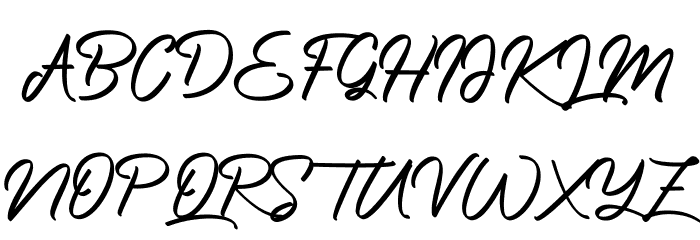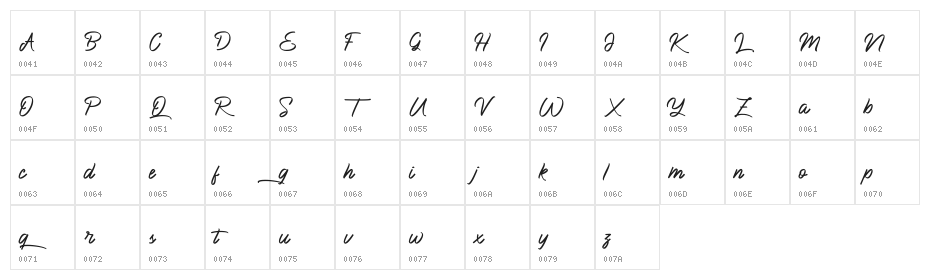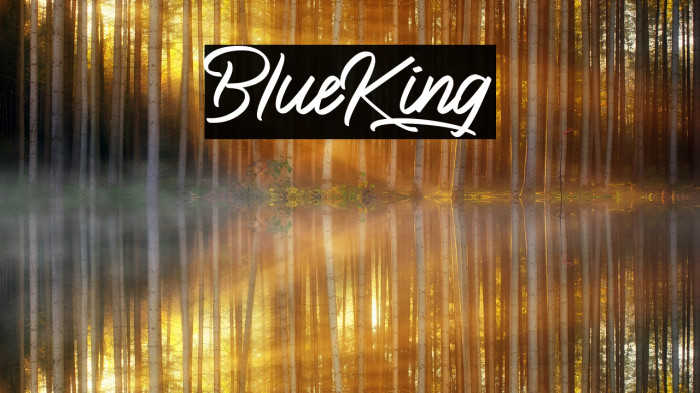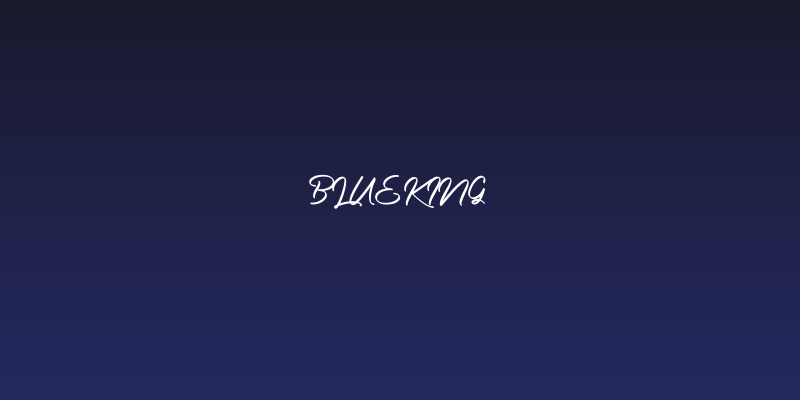
BlueKing Font
BlueKing Description
This font features an elegant and flowing script style, characterized by its smooth, cursive strokes and graceful curves. The uppercase letters exhibit a sophisticated flair with elongated lines and subtle flourishes, while the lowercase letters maintain a consistent fluidity that complements the overall design. The numbers and special characters are crafted with the same attention to detail, ensuring a cohesive appearance across all glyphs. This font exudes a sense of elegance and refinement, making it suitable for projects that require a touch of sophistication and style.